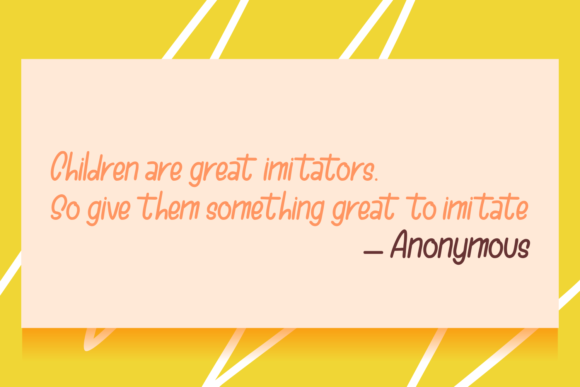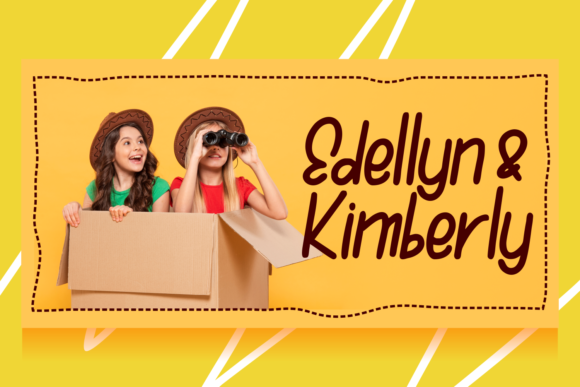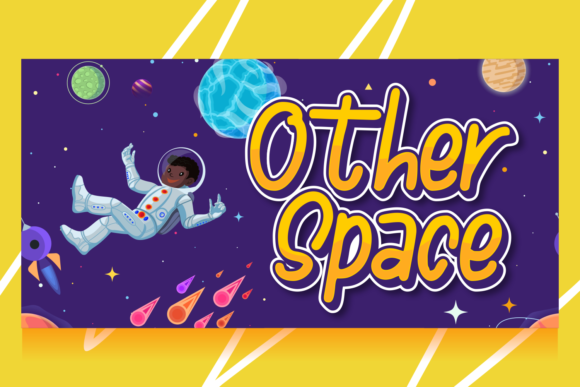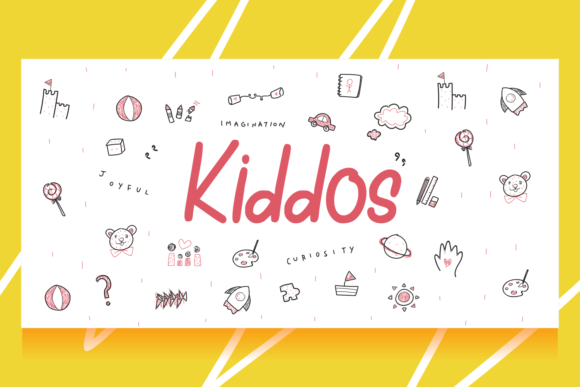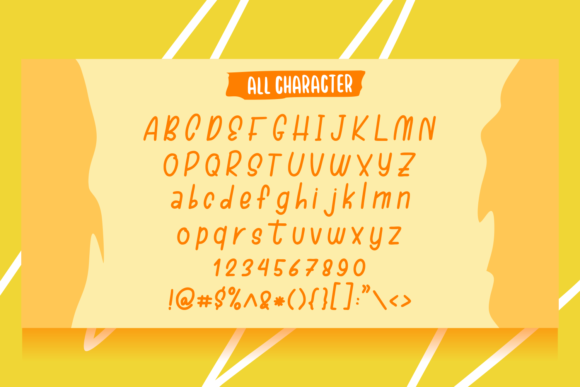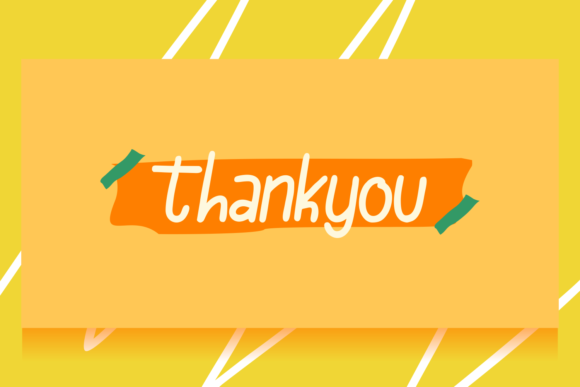
Introduction to Lemon House Font Font
Fonts play a crucial role in design, and the Lemon House Font font is a typeface that brings both character and versatility to any project. Whether you’re working on a branding project, a website, or a print design, the Lemon House Font font offers a unique style that can elevate your work.
Lemon House is a simple and clean handwritten font.
This adaptable font will look great on a variety of design ideas It will add a fun and friendly touch to each of your projects.
Key Features of Lemon House Font Font
Why Choose Lemon House Font Font?
The Lemon House Font font is more than just a typeface – it’s a design tool that helps you communicate your message with style and clarity. Its unique character set and versatile design make it suitable for a wide range of applications, from elegant invitations to bold headlines.
With its carefully crafted letterforms and balanced proportions, the Lemon House Font font ensures readability and visual appeal across all mediums.
What makes Lemon House Font font special?
The Lemon House Font font stands out with its unique design, exceptional readability, and versatility across various design applications.